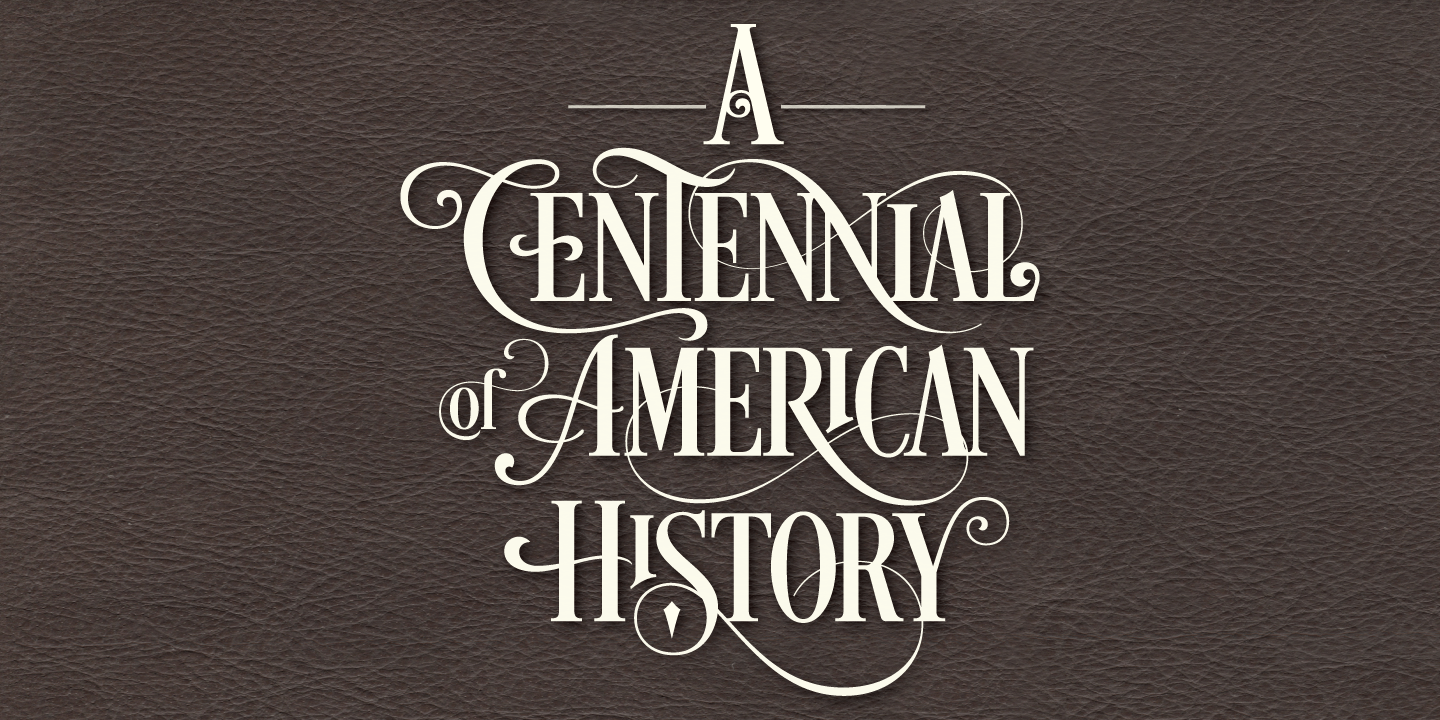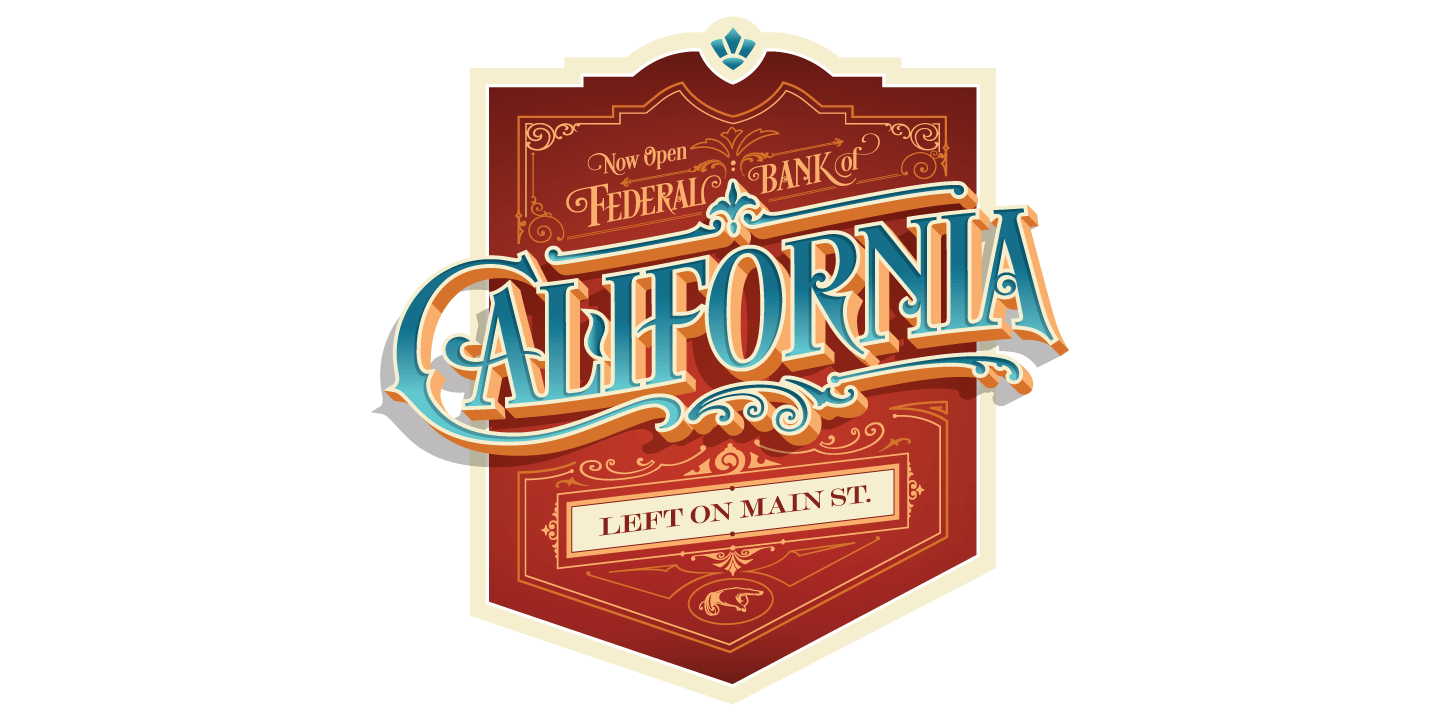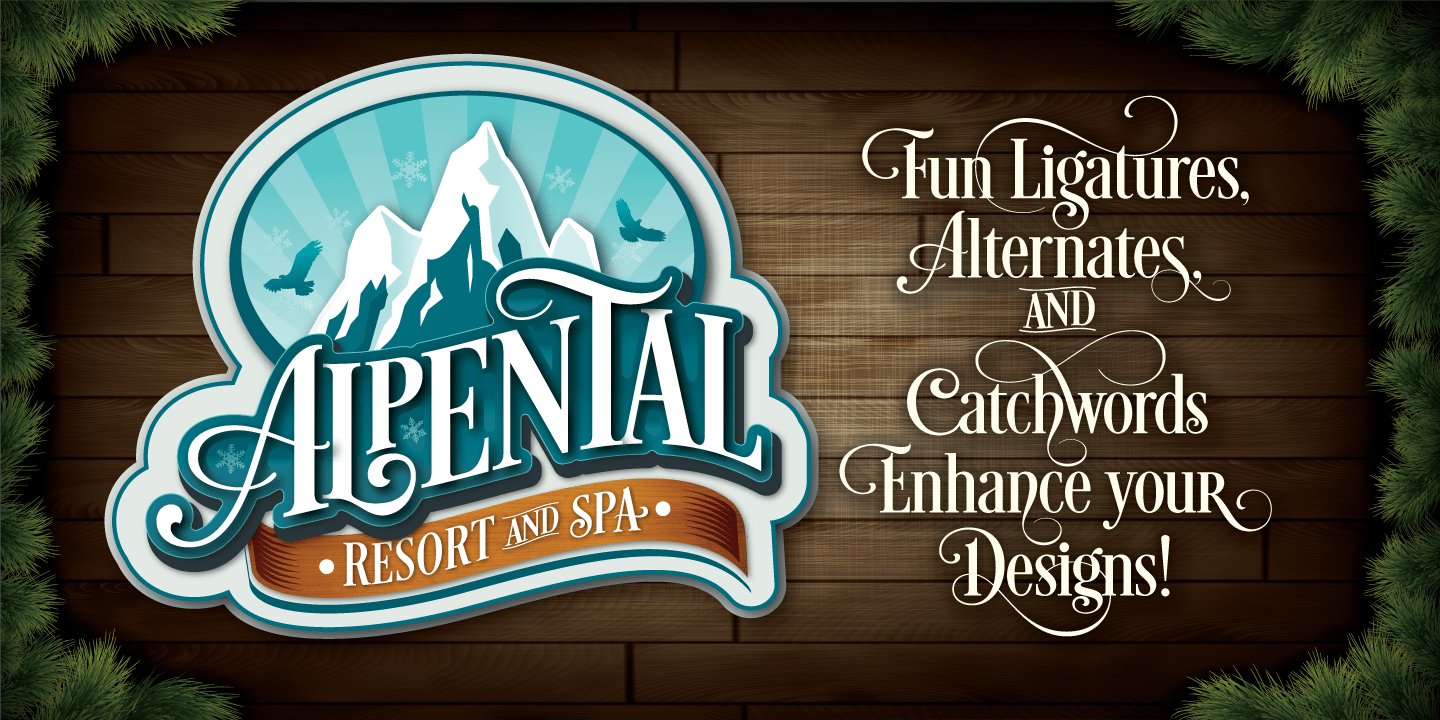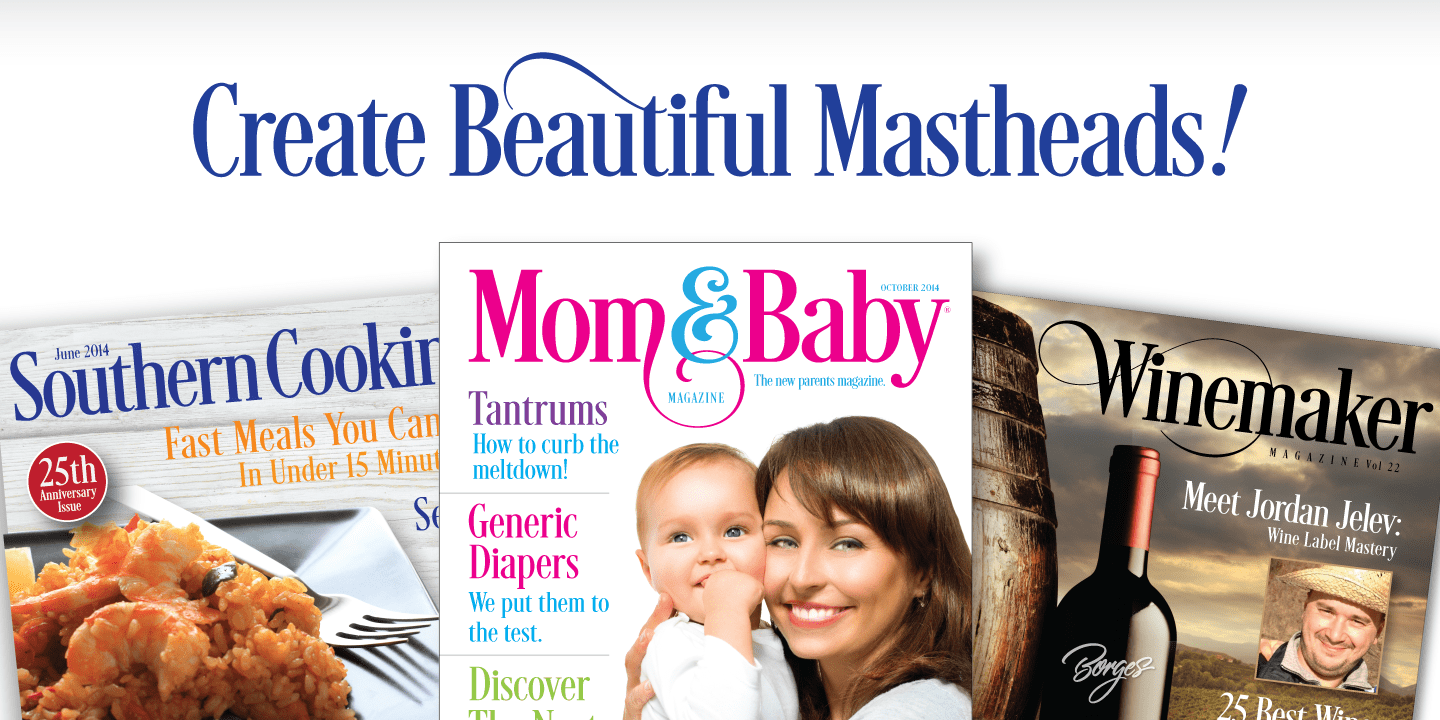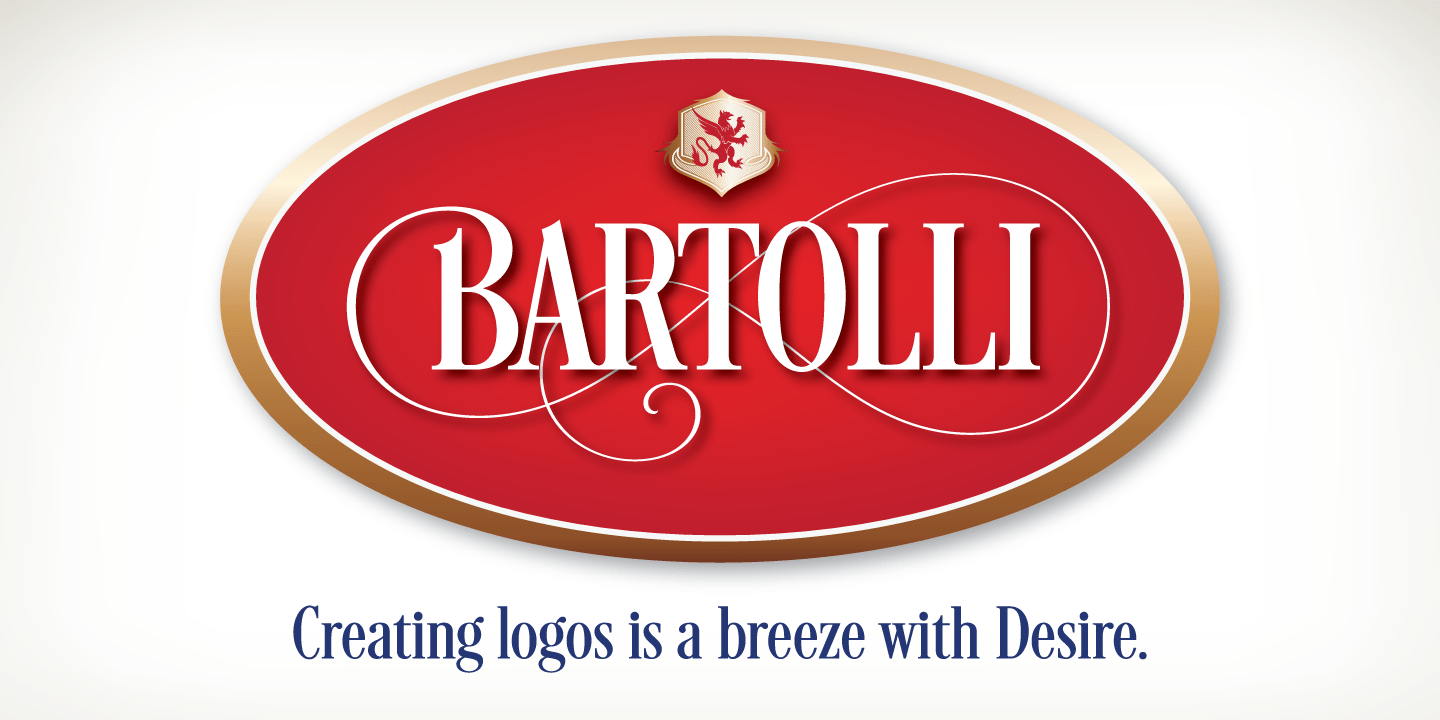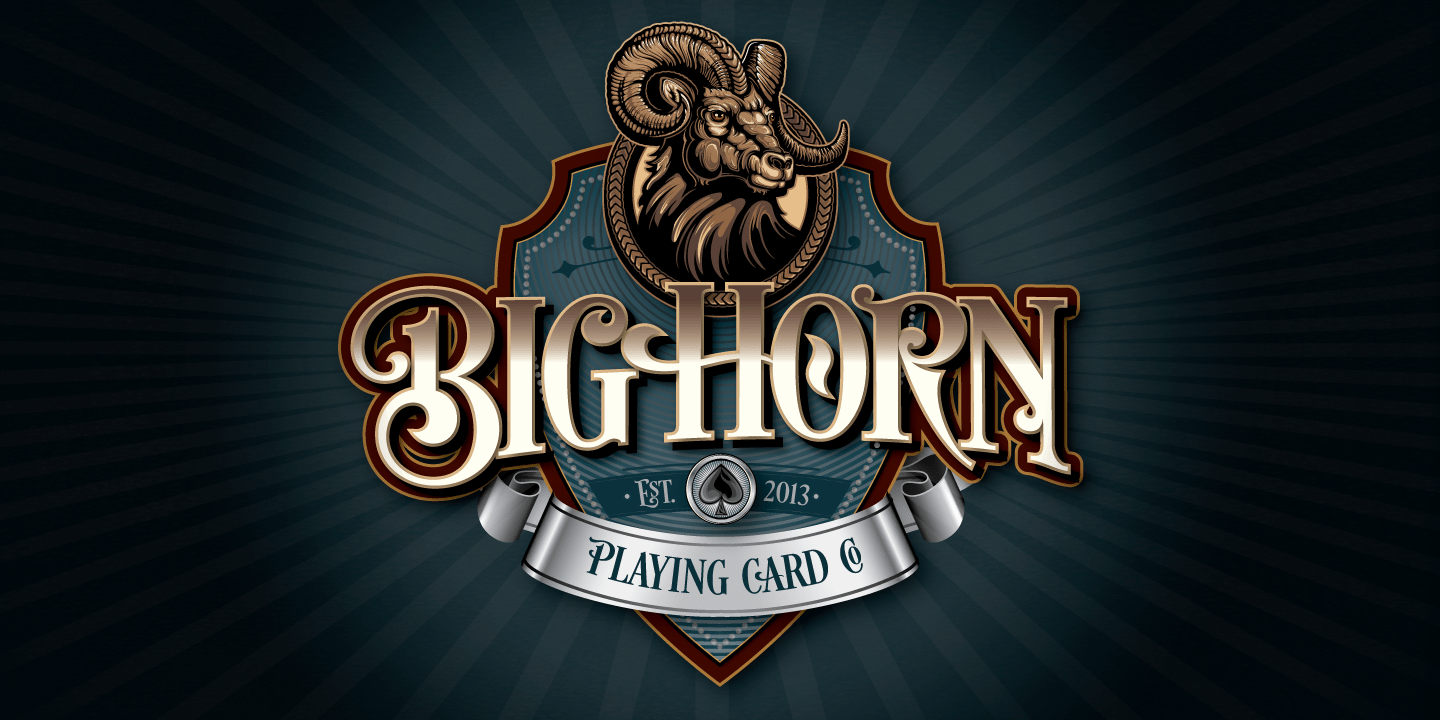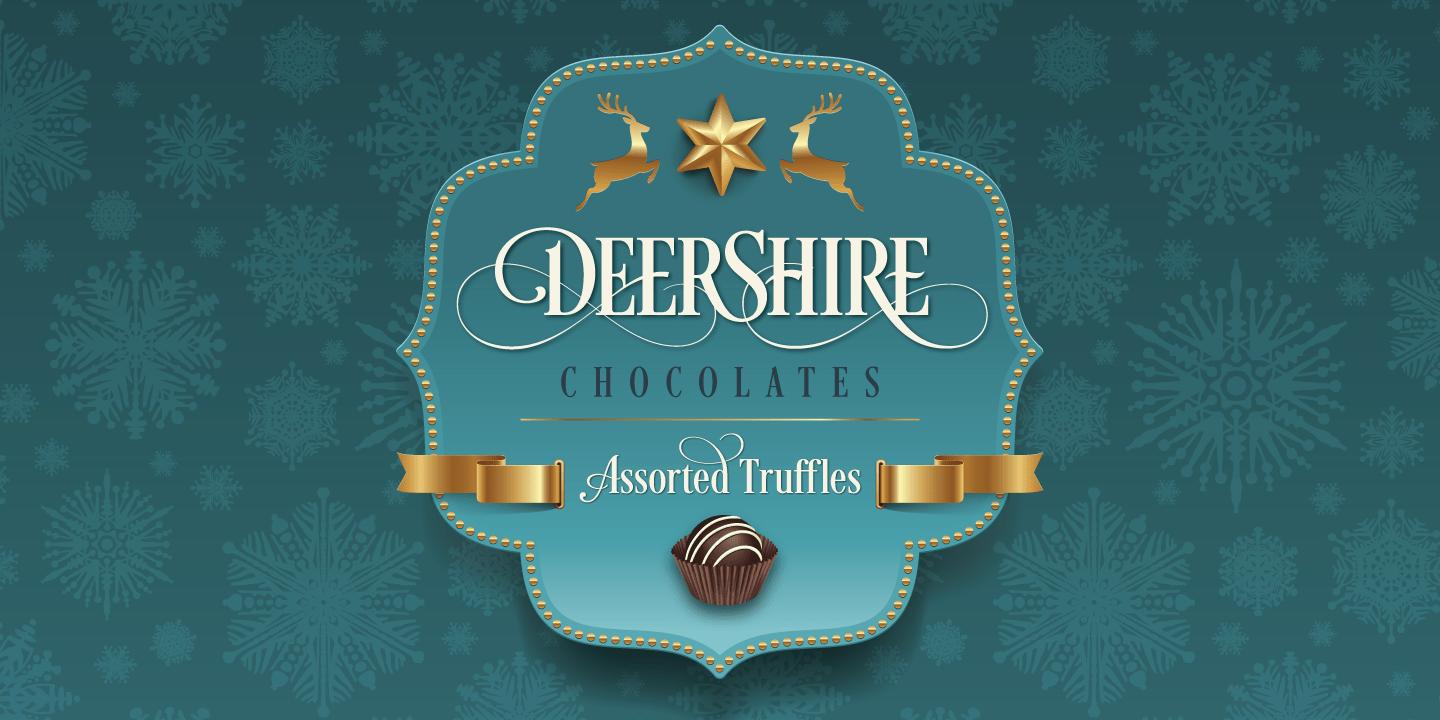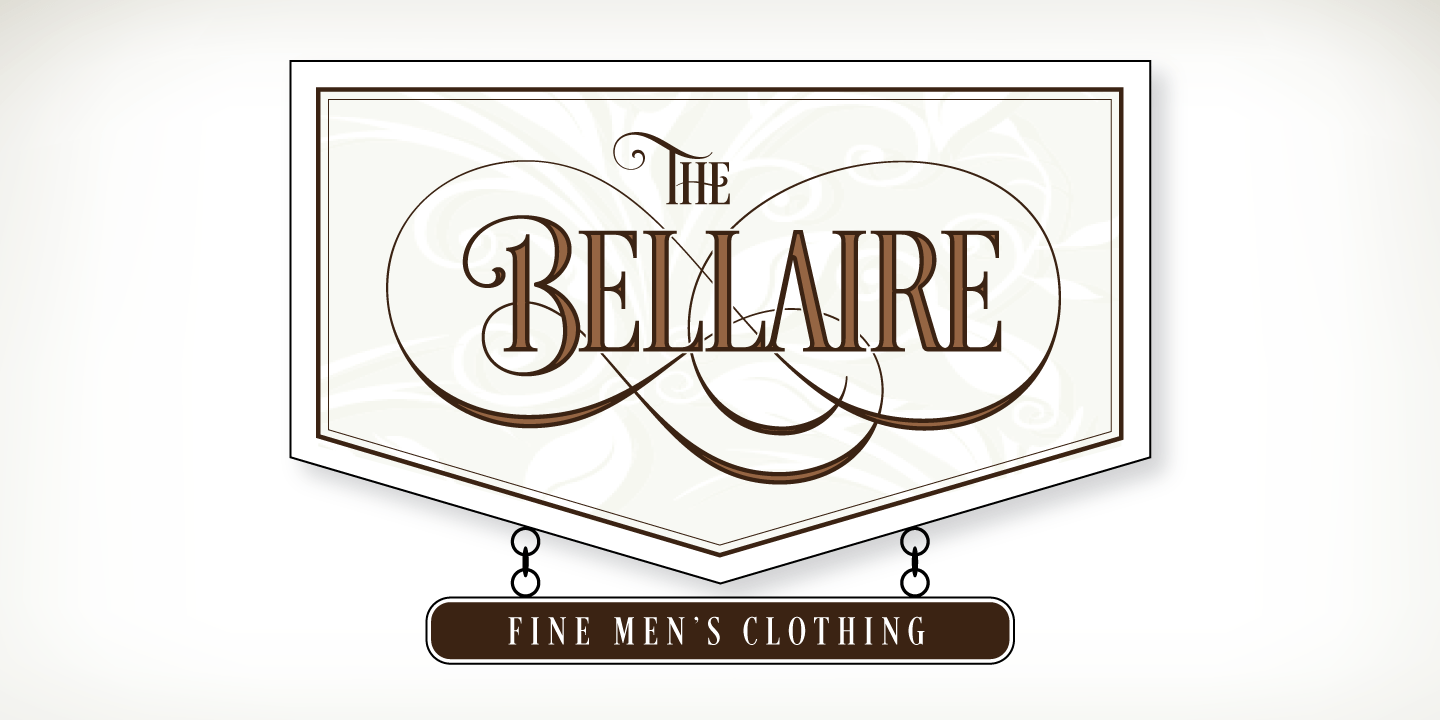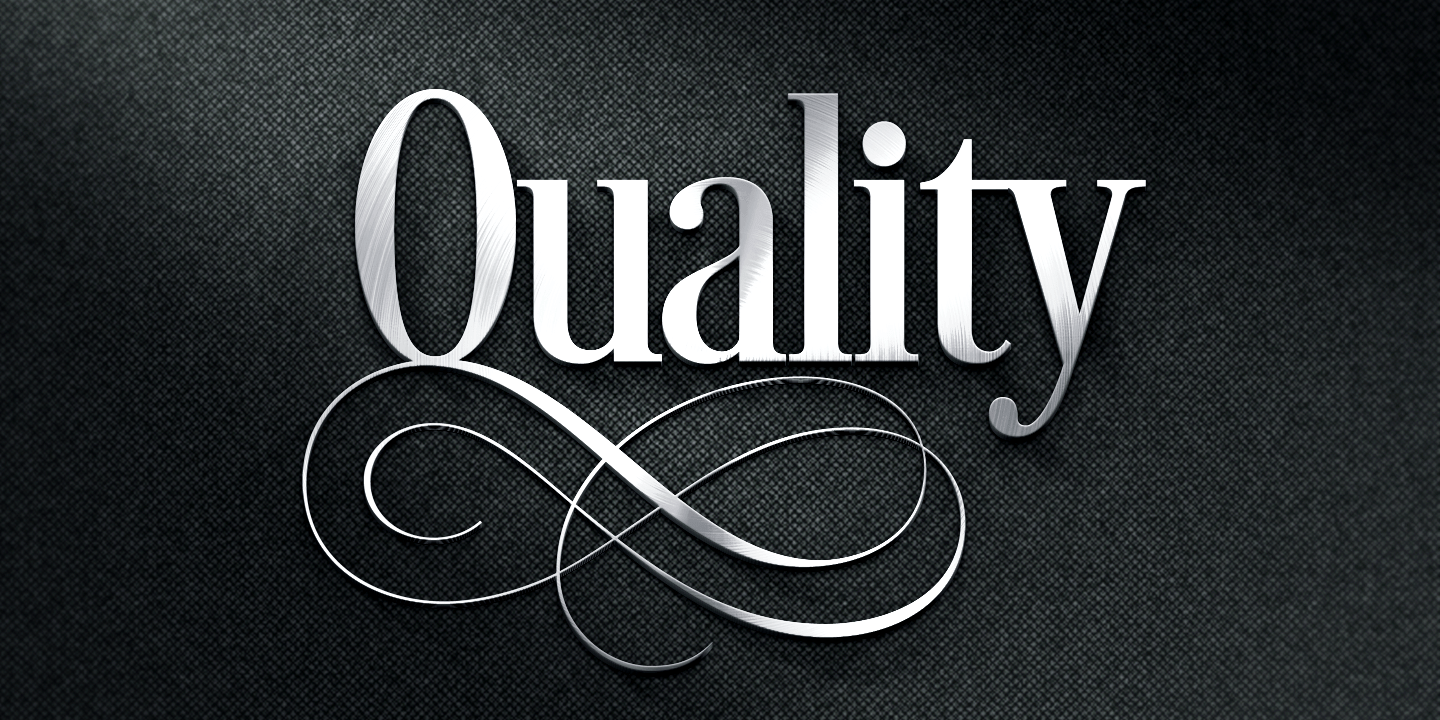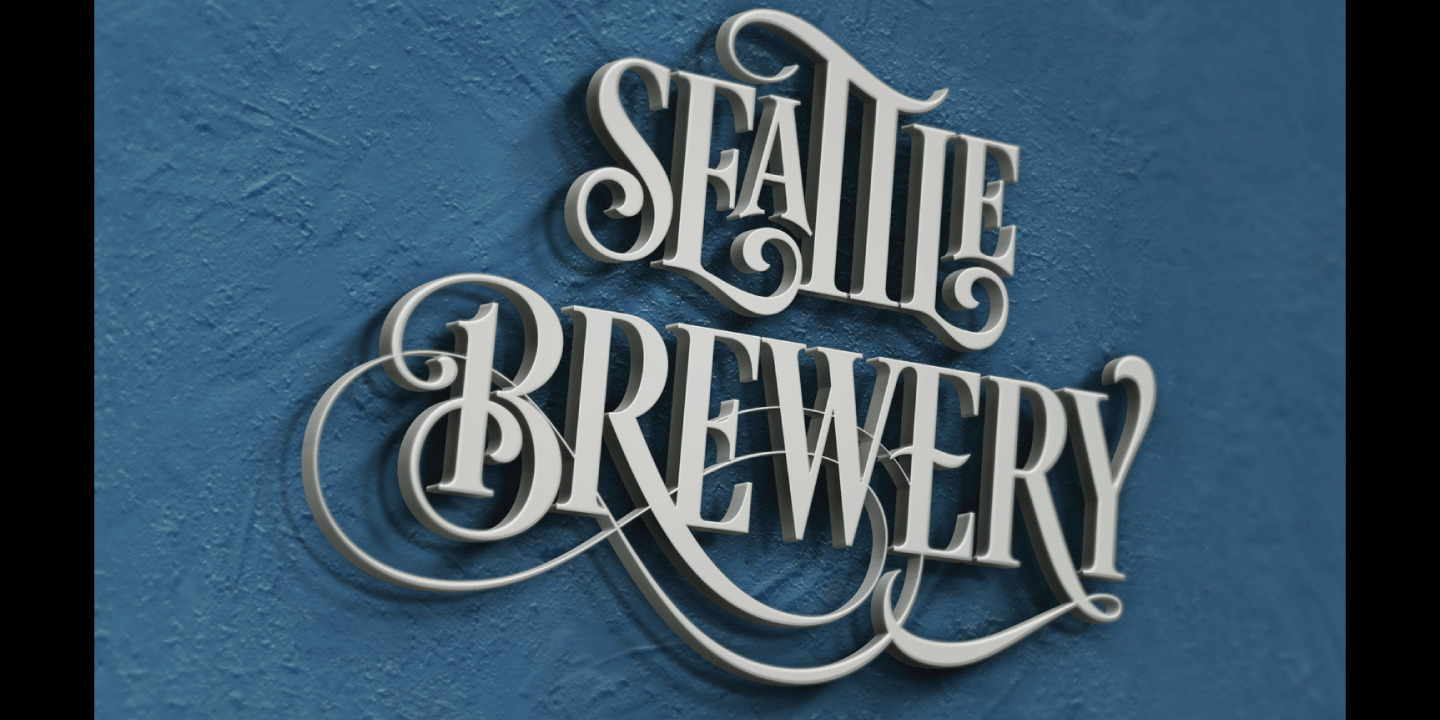
Desire
Buy NowWith over five years of design and development, Desire is a pursuit of epic proportions and ready to make a statement by adding elegance and unique flair to your next design project. Cultivated by his passion of letters, Charles Borges de Oliveira has developed one of his largest typefaces to date. Featuring 644 alternate letters, 98 ligatures, 8 flourishes and 6 catchwords, Desire offers an expansive set of options to create logos, headlines and titling. It is well suited for books, editorial, packaging, advertising, branding and more. From period style and Victorian to modern and elegant, Desire is strong and stately yet elegant and decorous. Some of the alternate uppercase forms feature delicate line flourishes creating a subtle background for additional letters to rest ? the result is an intertwining and beautifully flourished design. Unique ligatures go beyond function and add eye catching flair and style. Desire is truly a designer's dream come true!